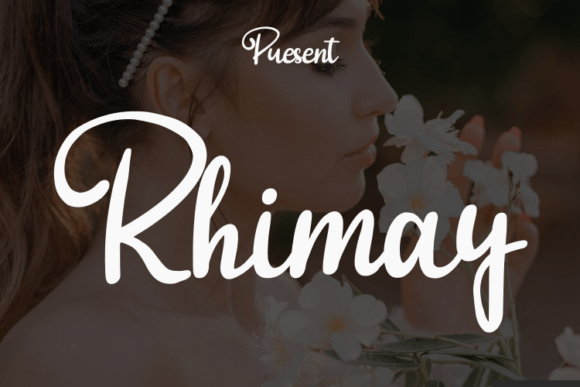
Step into the realm of elegance with Rhimay, a script typeface that captivates the senses with its simple style and modern appeal. Crafted with meticulous attention to detail, Rhimay embodies the essence of sophistication, transforming your designs into masterpieces of art.
Rhimay's graceful curves and sweeping strokes add a touch of charm and personality to any project. Its clean and uncluttered design ensures maximum readability, making it the perfect choice for logos, book covers, or movie design titles. Rhimay's versatility extends beyond the digital realm, seamlessly integrating into fashion brands, magazines, clothing collections, and beyond.
Embrace Rhimay's timeless beauty and elevate your designs to new heights. Let your imagination soar as you explore the limitless possibilities that this exquisite typeface offers. From elegant logos that exude professionalism to captivating book covers that draw readers in, Rhimay empowers you to create a lasting impression.
With Rhimay, experience the joy of seamless customization. Tailor it to your unique vision, selecting from a range of weights and styles to suit your specific needs. Whether you seek a bold and dramatic statement or a delicate and understated elegance, Rhimay adapts effortlessly, allowing you to express your individuality.
Rhimay's allure extends beyond its aesthetic appeal, offering a host of practical advantages. Its crisp and clear letterforms ensure readability even at small sizes, making it an ideal choice for web design and digital marketing materials. The font's extensive character set and multilingual support ensure seamless integration with a wide range of languages, expanding your creative horizons.
Discover the magic of Rhimay today and embark on a creative journey like no other. Unleash your inner artist and let your designs bloom with beauty and sophistication. Rhimay awaits you, ready to transform your vision into a reality.